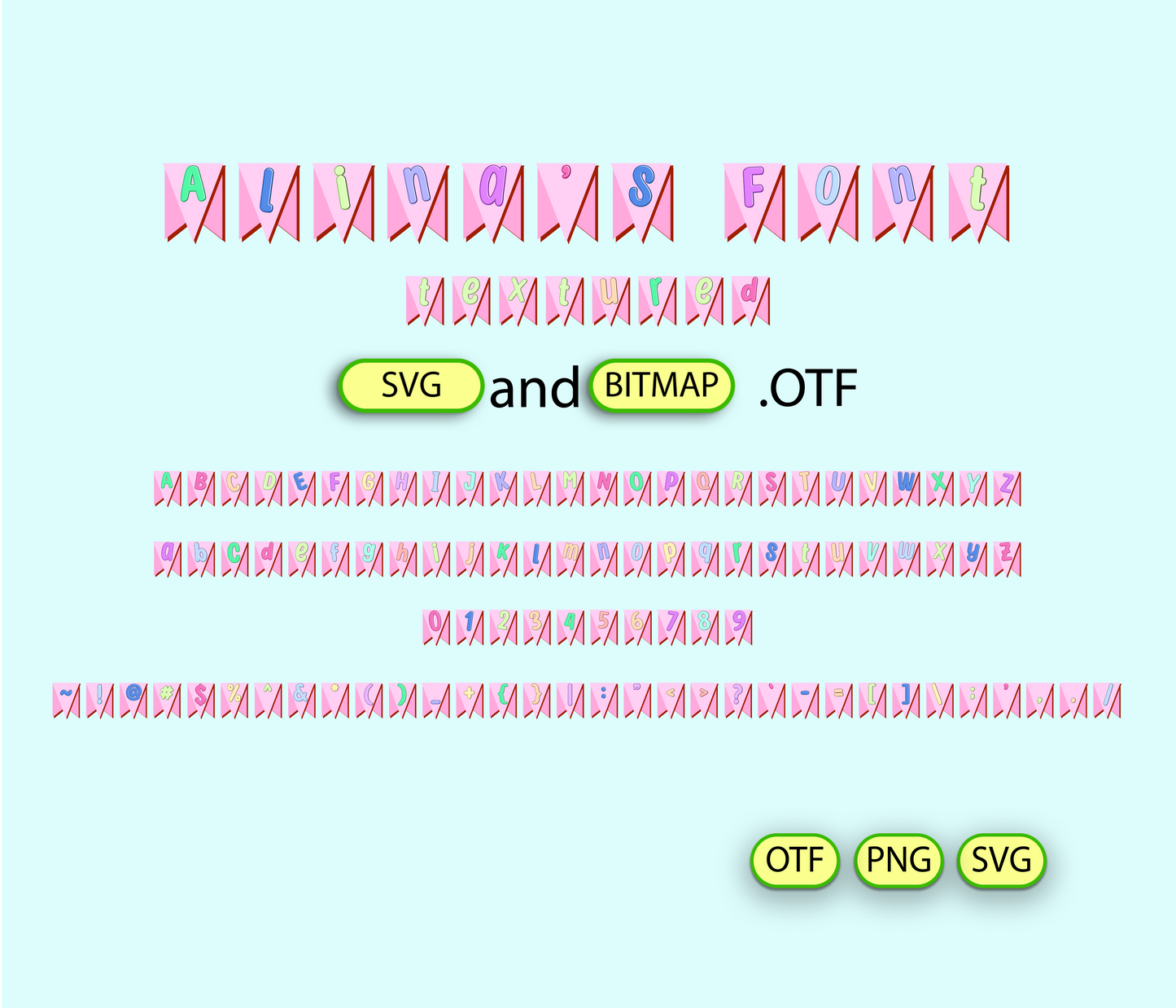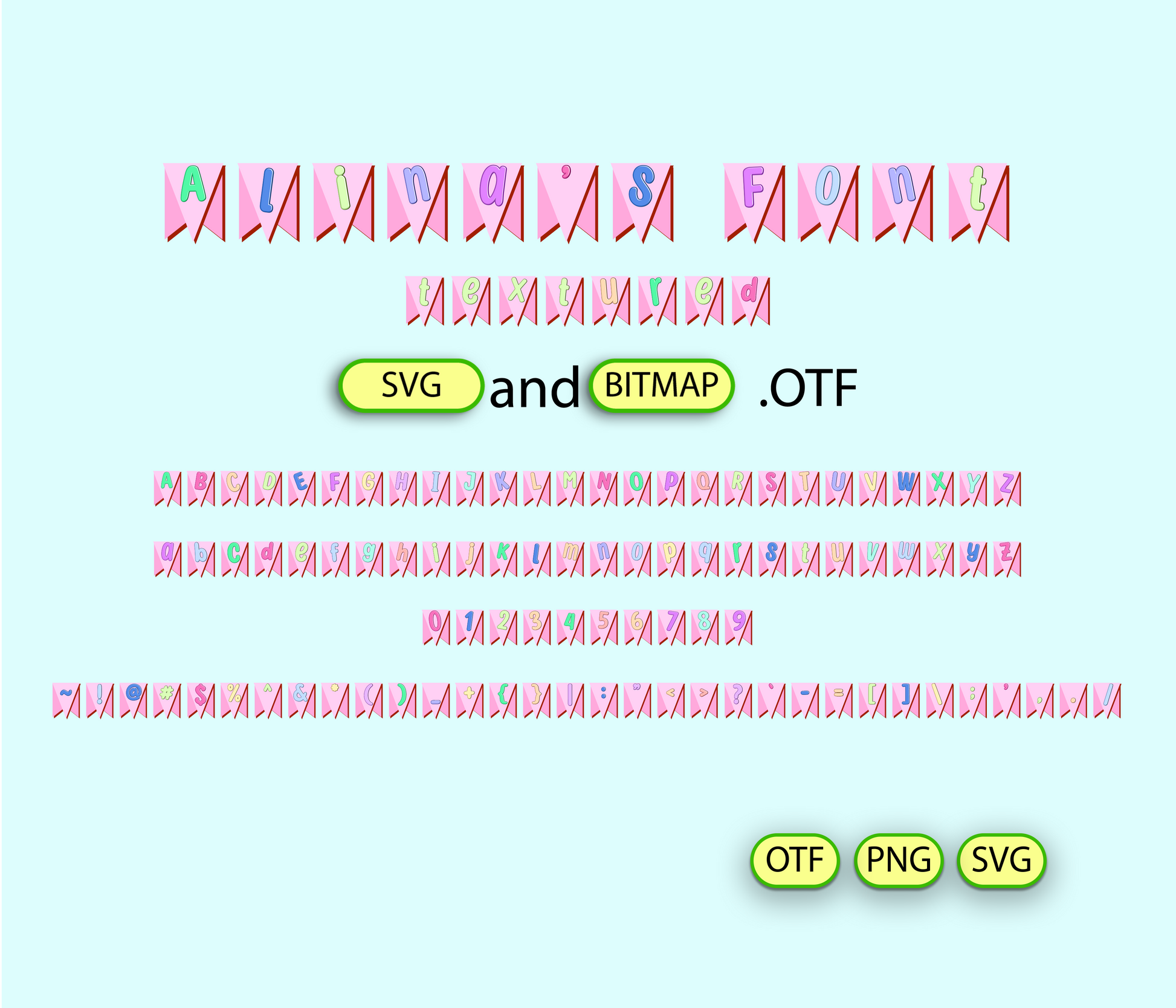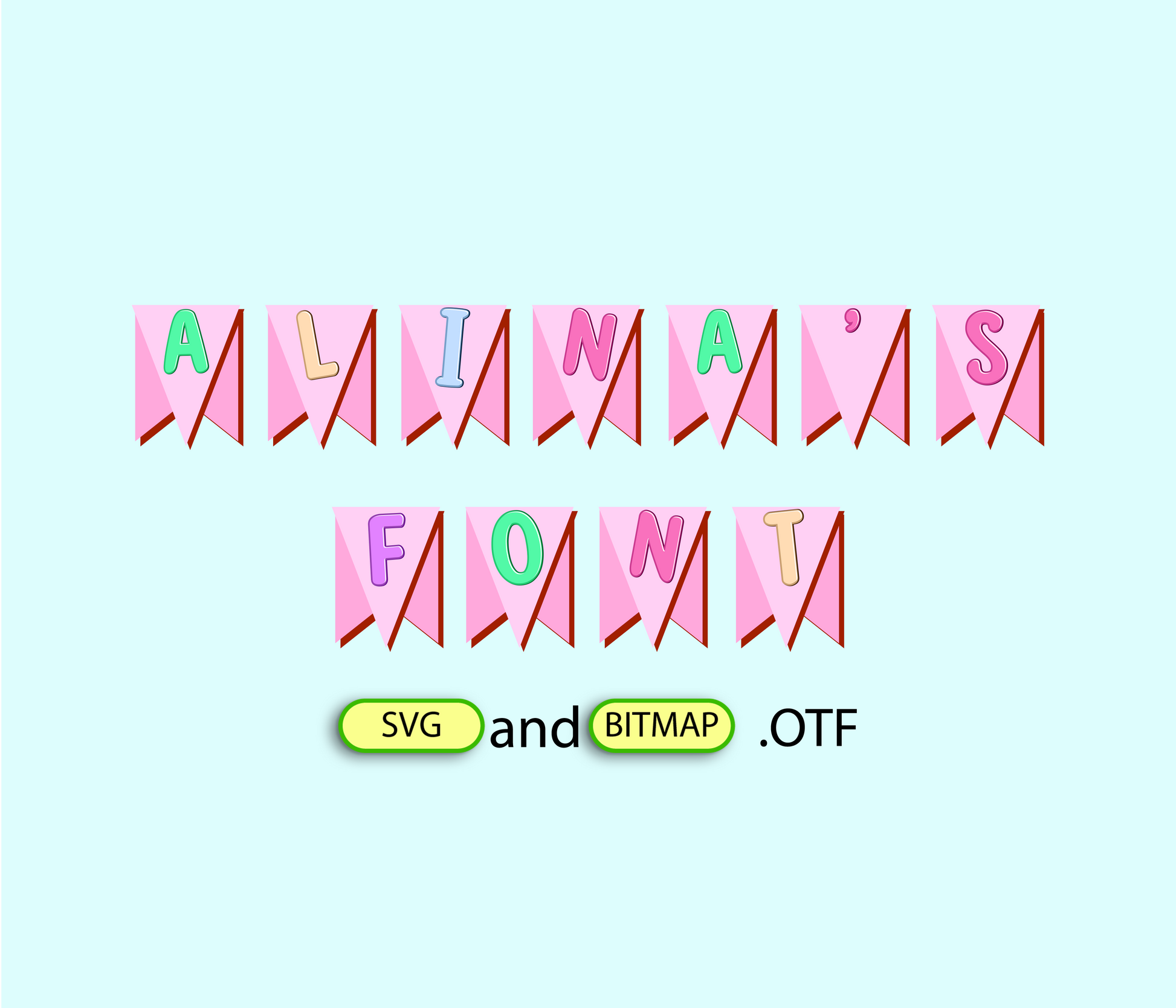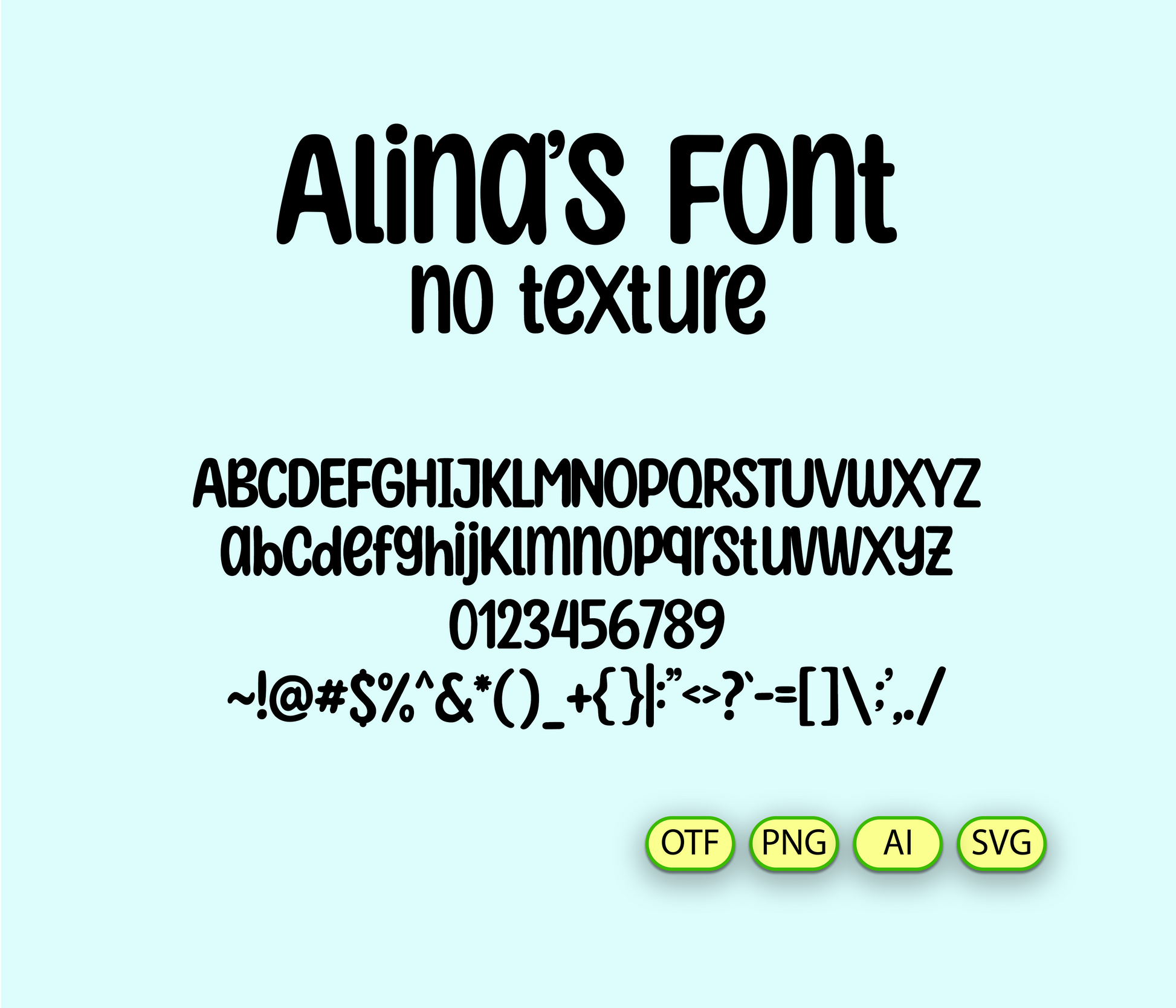
Birthday Splendor Banner Font Textured
Birthday Font: Celebrate Every Moment with Typography
Immerse yourself in the joy and excitement of celebrations with the Birthday font, a typeface designed to encapsulate the essence of birthday parties, anniversaries, and every festive occasion in between. This font is a visual confetti, spreading happiness and vibrant energy through each letter and symbol. Crafted for event planners, designers, and anyone looking to add a touch of cheer to their projects, the Birthday font is your go-to for creating memorable, joyful designs that evoke the spirit of celebration.
With its festive flair, the Birthday font lends itself to a variety of creative and celebratory uses:
- Party Invitations: Create invitations that set the tone for an unforgettable celebration.
- Birthday Cards: Design personalized birthday cards that are as unique as the recipient.
- Event Banners and Signage: Craft eye-catching banners and signs for birthday parties and events.
- Social Media Posts: Enhance your social media content with typography that celebrates in style.
- Themed Merchandise: Apply the font to t-shirts, mugs, and party favors for that extra special touch.
- Decorations: Design custom decorations that bring the party to life, from banners to table settings.
- Website Design: Give your event planning or party supply website a festive makeover.
- Photo Books and Scrapbooking: Add a joyful touch to photo albums, memory books, or scrapbooks.
- Marketing Materials: Promote special offers, events, or celebrations with engaging typography.
- Packaging Design: Use the font for packaging that requires a celebratory and inviting look.
The Birthday font is more than just a typeface; it's a celebration in every character and a party in every print. With its inclusivity across platforms like Canva and its dual textured and non-textured versions, this font invites you to infuse your projects with the joy, excitement, and memorable moments of birthdays and celebrations. Whether for professional event planning, personal projects, or commercial designs, the Birthday font turns every day into a special occasion, ensuring your creations not only stand out but also spread happiness and cheer.